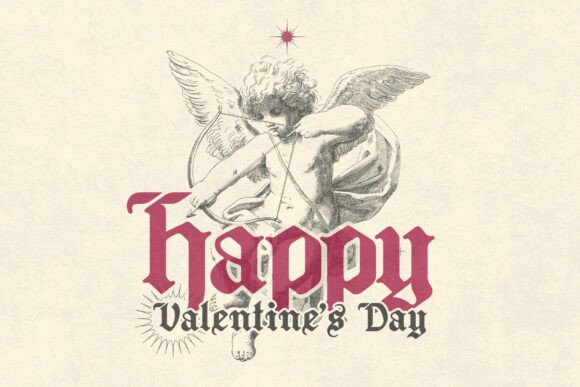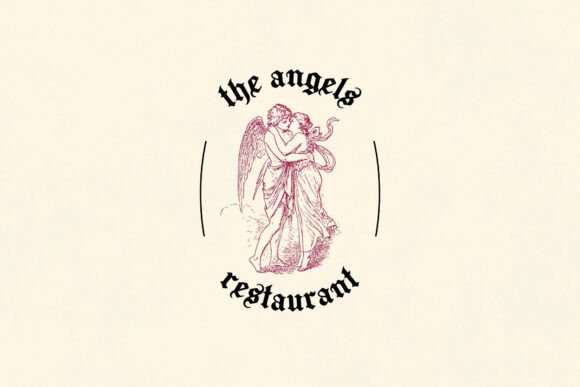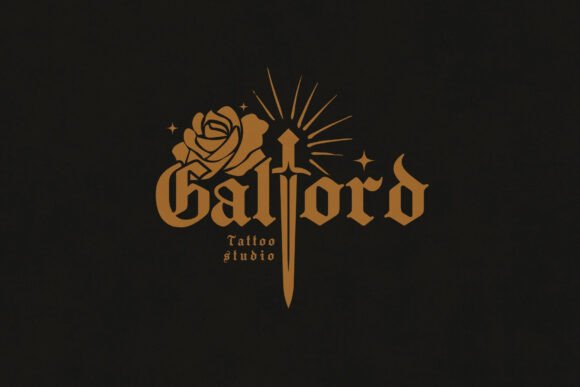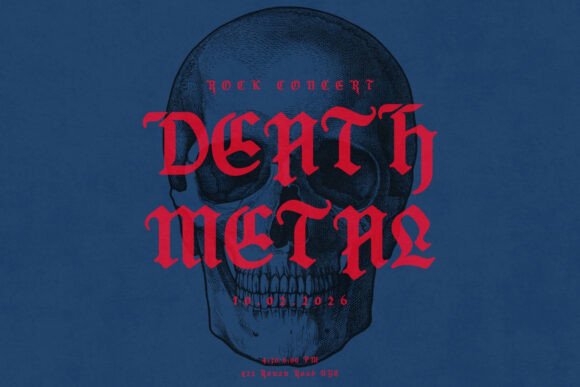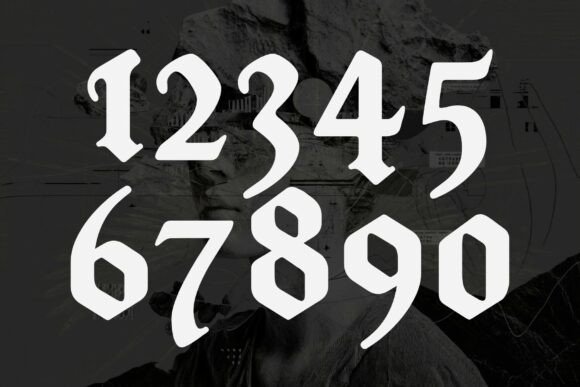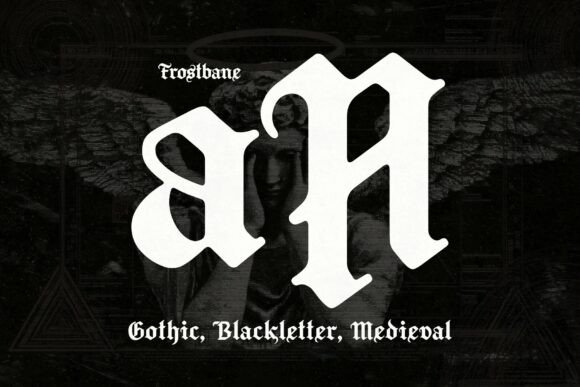
Unleash the Mystique of the Past with Frostbane Font
Are you looking for a typeface that can transport you and your audience to a bygone era? Do you want to add a touch of medieval magic and mystery to your designs? Look no further than Frostbane, a breathtaking gothic blackletter typeface that captures the chilling elegance of ancient English manuscripts.
A Font Forged in History
Frostbane was carefully crafted to evoke a sense of timelessness, drawing inspiration from the intricate hand-drawn calligraphy of Gothic Europe. This dark, ornate, and historically-rich typeface is perfect for designers and crafters who want to add a sense of authenticity and grandeur to their work. With 235 glyphs and support for 68 languages, Frostbane is more than just a beautiful font – it’s versatile and powerful.
Whether you’re working on a fantasy book cover, band logo, event poster, or mystical branding, Frostbane is the perfect choice. Its bold and ornate design makes an unforgettable impact, drawing the eye and captivating the imagination. Imagine using Frostbane to create:
- Fantasy book covers that transport readers to a world of magic and wonder
- Band logos that evoke a sense of mystery and intrigue
- Event posters that conjure up images of medieval grandeur
- Mystical branding that adds a touch of ancient wisdom
A Font that Carries the Weight of Centuries
Frostbane’s design is reminiscent of illuminated scrolls and cryptic titles, carrying the weight of centuries with it. This typeface is ideal for any project that needs to feel ancient, regal, and commanding. Whether you’re creating a logo, poster, or branding materials, Frostbane adds a level of sophistication and elegance that’s hard to match.
Key Features of Frostbane Font
- 235 glyphs for endless design possibilities
- Support for 68 languages
- Dark, ornate, and historically-rich design
- Perfect for fantasy, mystical, and medieval-themed designs
- Bold and commanding presence
Why Choose Frostbane Font?
So why choose Frostbane font for your next design project? Here are just a few reasons:
- Unique and distinctive design: Frostbane’s gothic blackletter design sets it apart from other typefaces, ensuring your work stands out from the crowd.
- Versatility: With 235 glyphs and support for 68 languages, Frostbane can be used for a wide range of design projects.
- Elegance and sophistication: Frostbane’s design exudes a sense of medieval grandeur, adding a level of elegance and sophistication to any project.
Get Ready to Cast a Spell with Frostbane Font
If you’re looking for a typeface that can add a touch of magic and mystery to your designs, look no further than Frostbane. With its bold, ornate, and historically-rich design, this gothic blackletter typeface is sure to captivate your audience and leave a lasting impression. So why wait? Unleash the mystique of the past with Frostbane font and get ready to cast a spell with your designs.